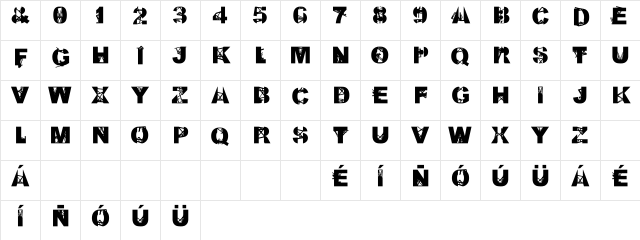
Kill All Fonts Just Aggression Regular
Design Context for Kill All Fonts Just Aggression
Kill All Fonts Just Aggression is a composed and adaptable typeface that performs quietly and consistently across a wide range of design contexts.